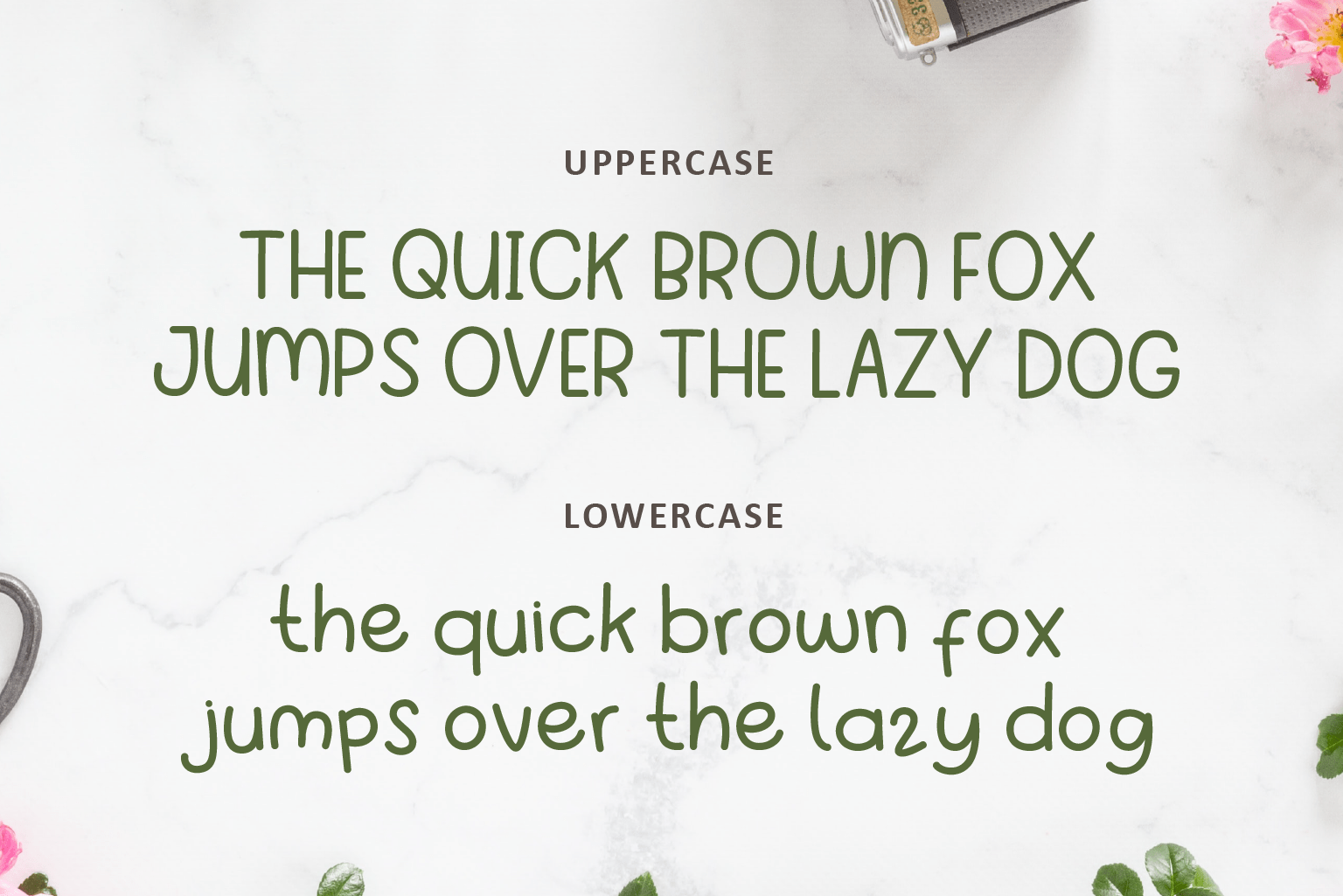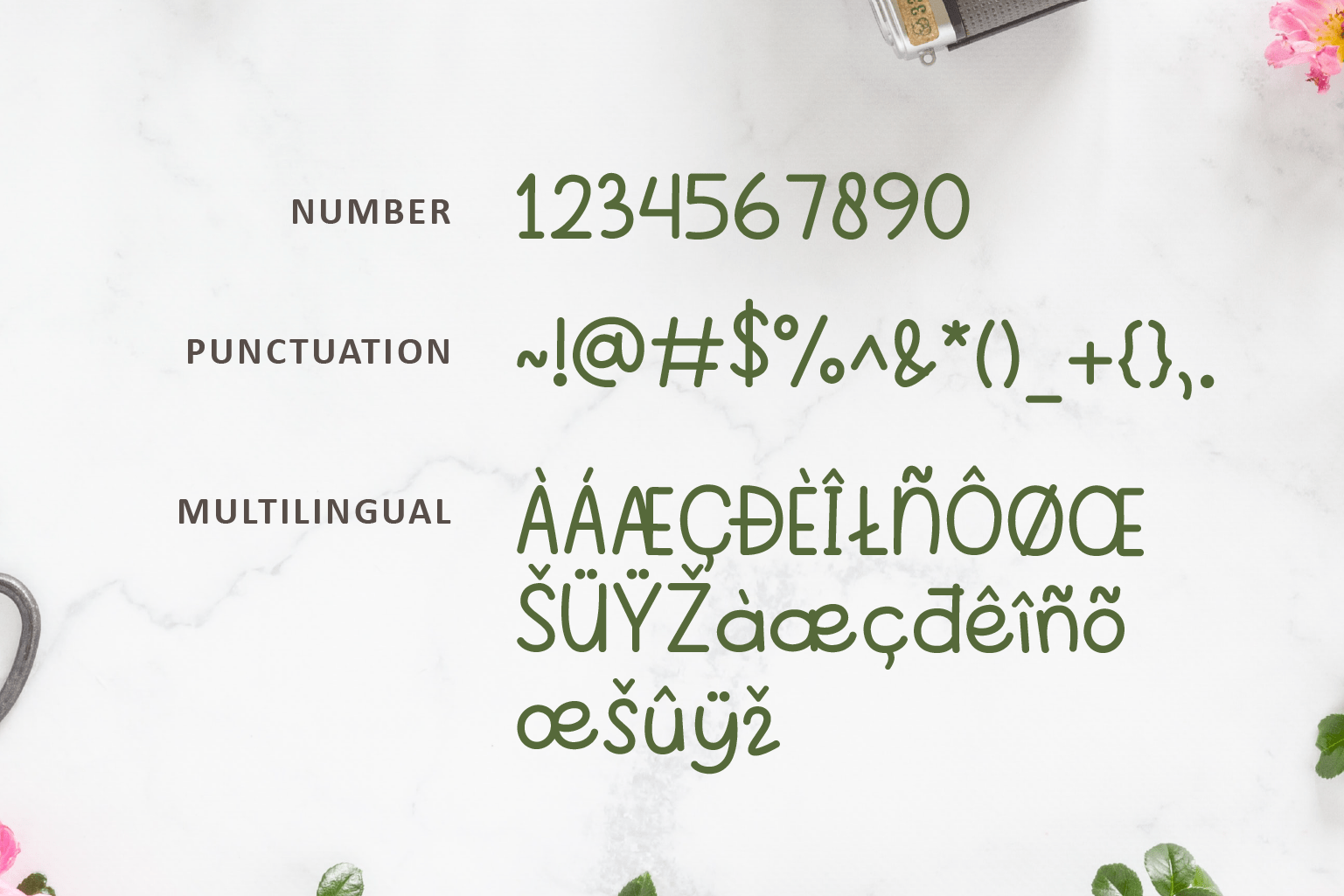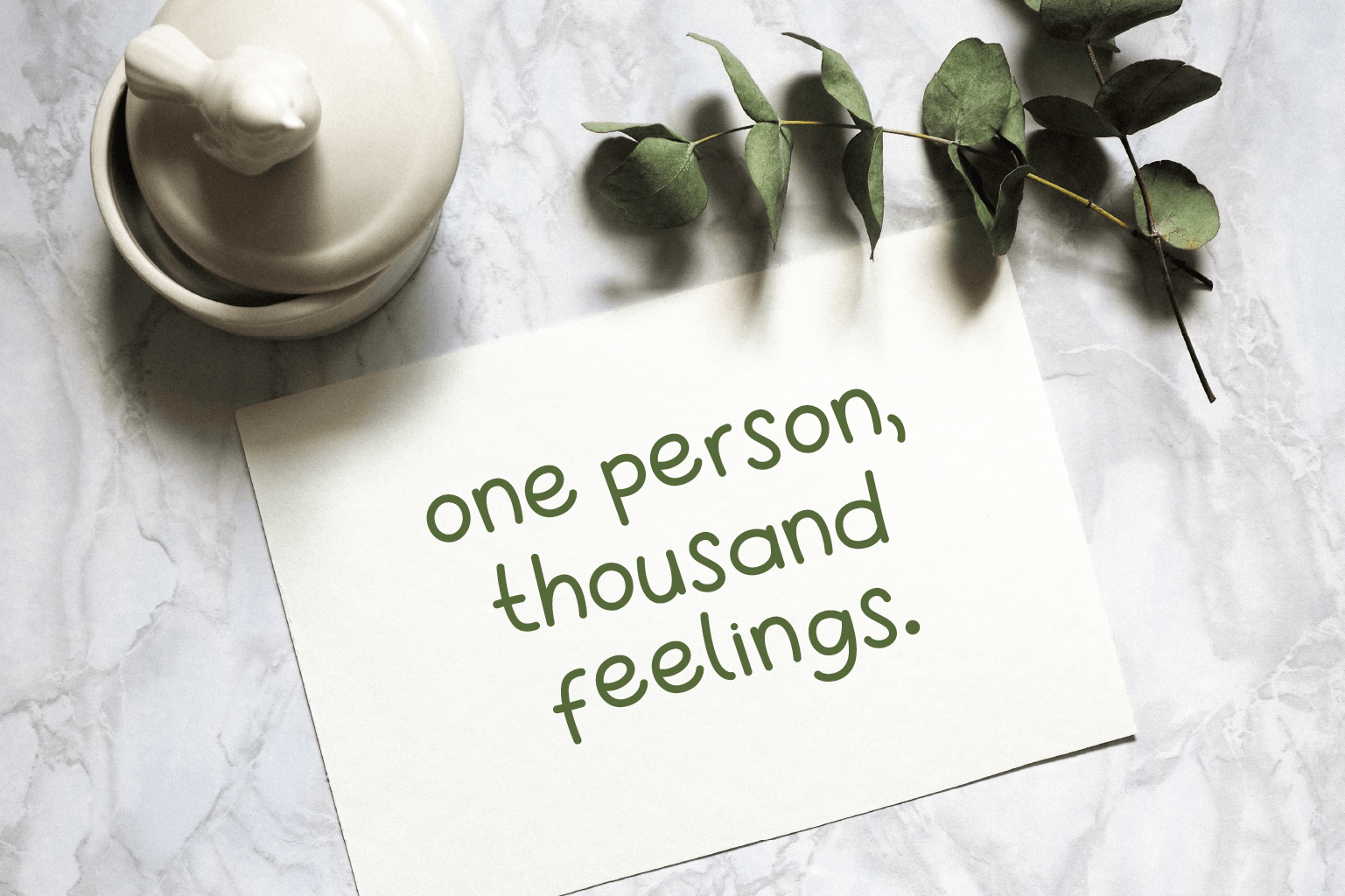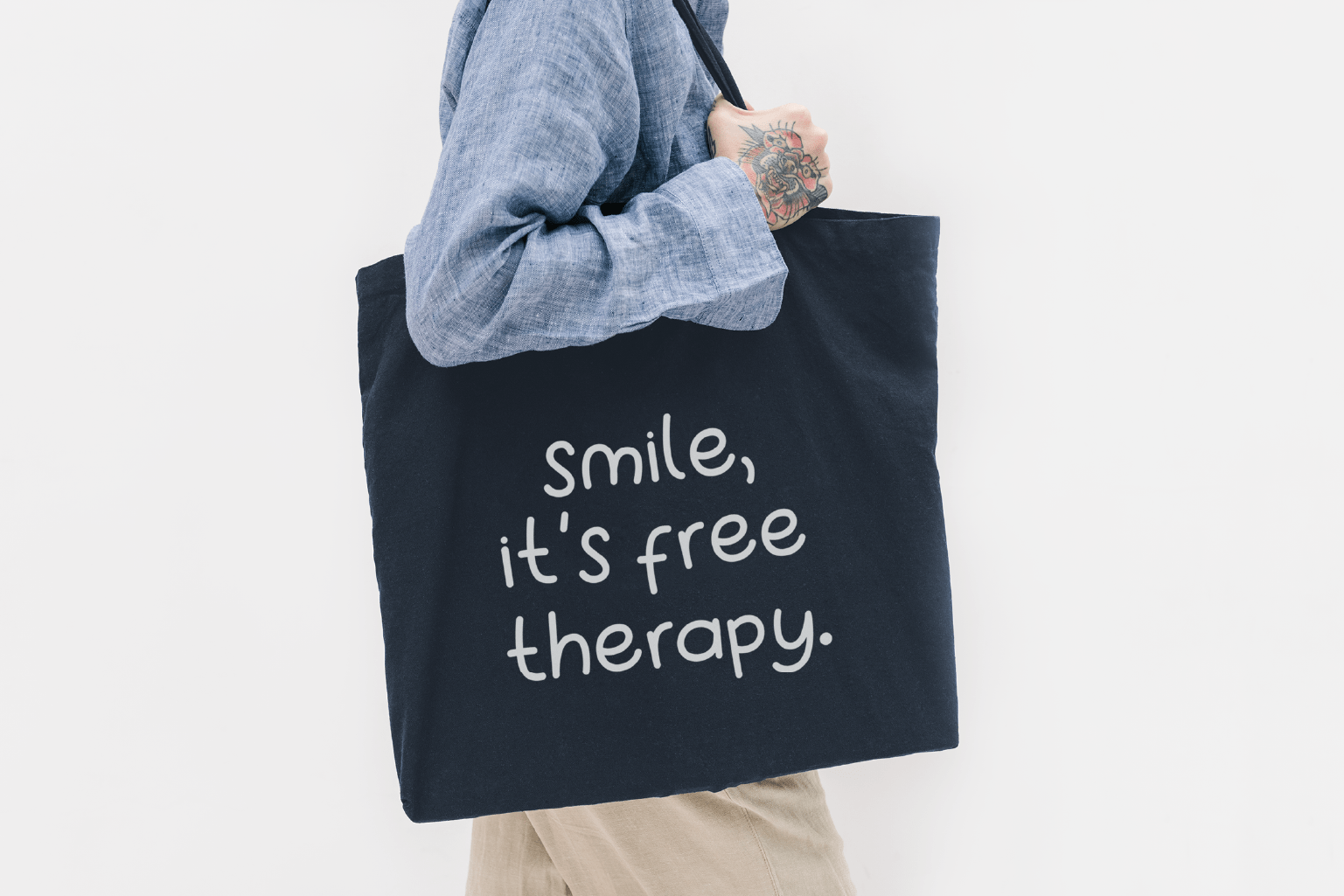
Arunika Renjana Font
Arunika Renjana Display Font
Arunika Renaja is a cute and simple handwritten font. Suitable for use as a substitute for handwriting. Arunika Renjana can be applied if you want to use simple and easy-to-read writing such as notes, bodytext, posts on Instagram. In addition, it can be applied to printed products such as books, clothes, etc.